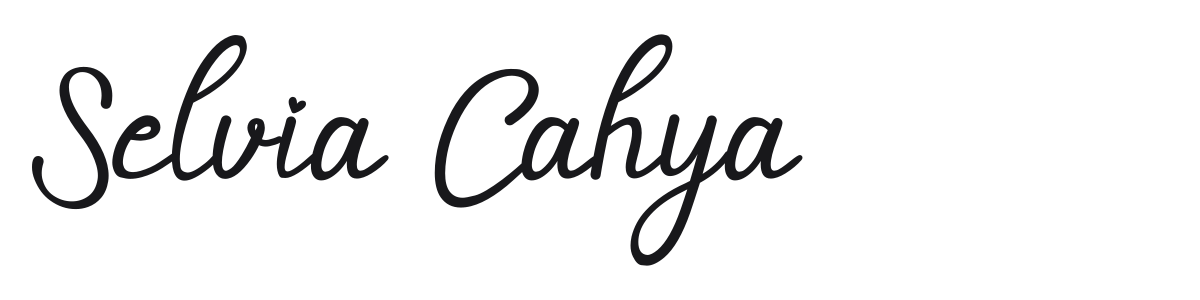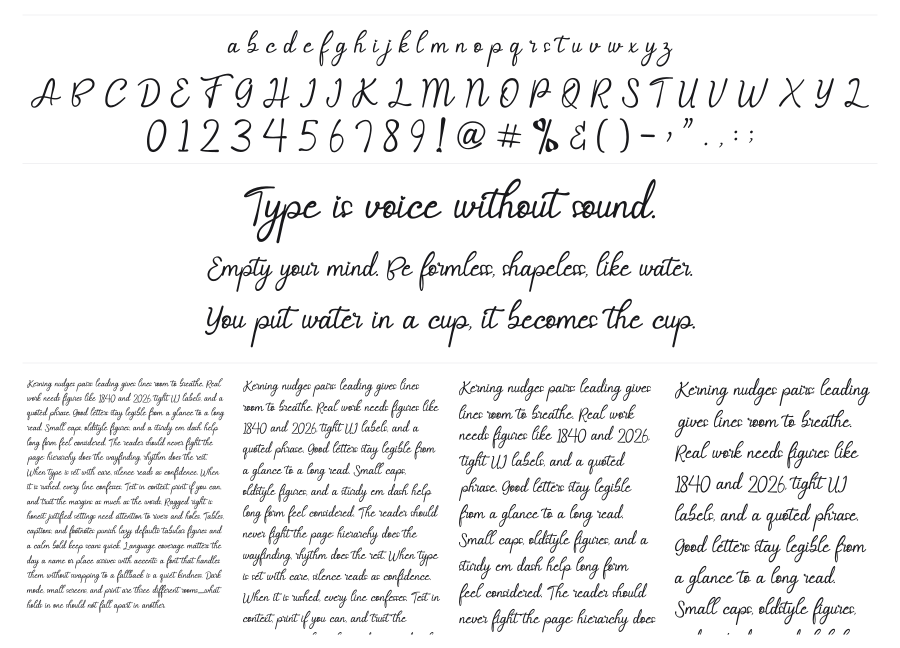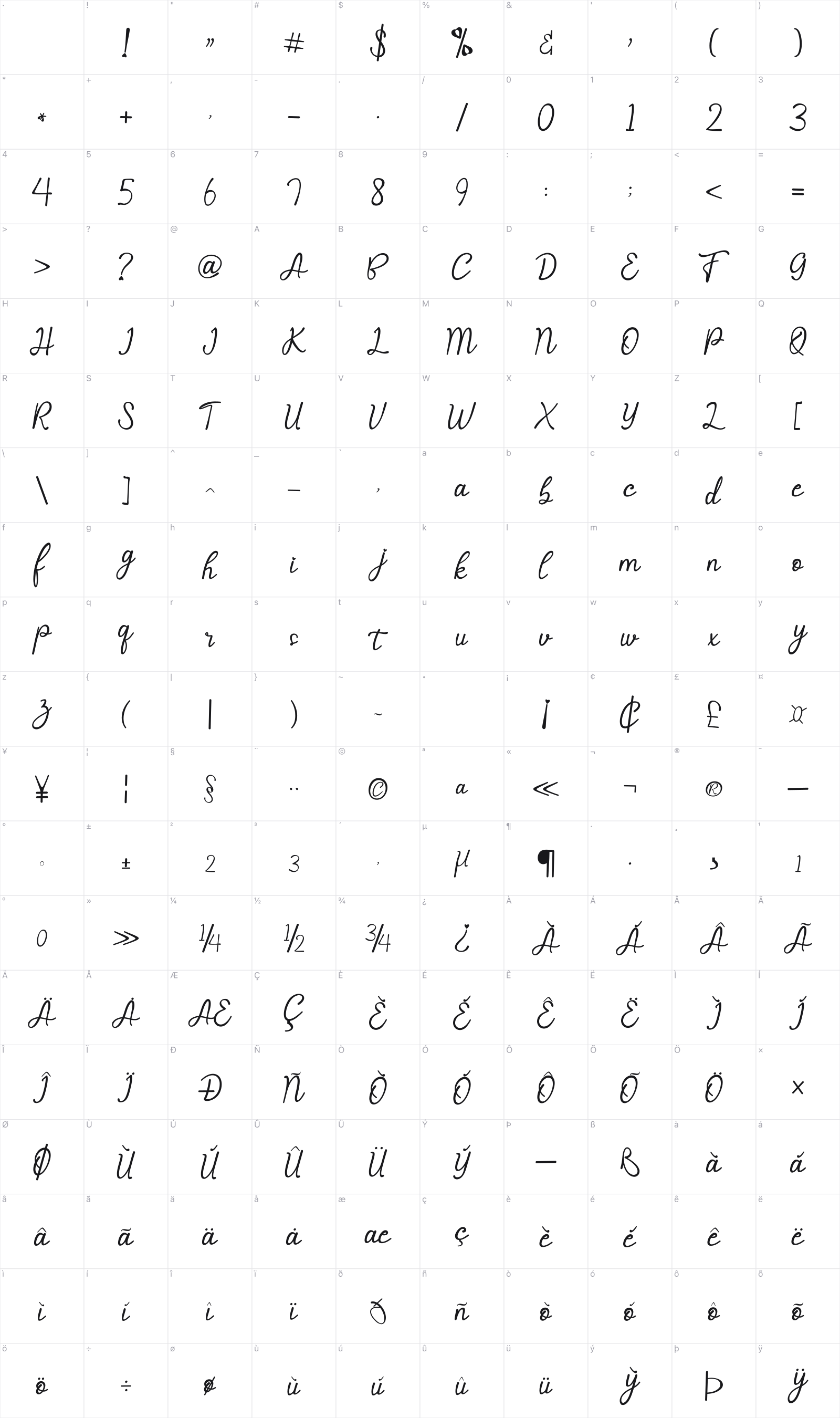
Selvia Cahya
Selvia Cahya is a casual connected script with looping, pen-lettered strokes and a lively bouncy rhythm. The near-monoweight line and rounded terminals keep it feeling approachable and warm rather than formal. It works naturally in logo lockups, packaging, and any project that needs a handwritten human touch.